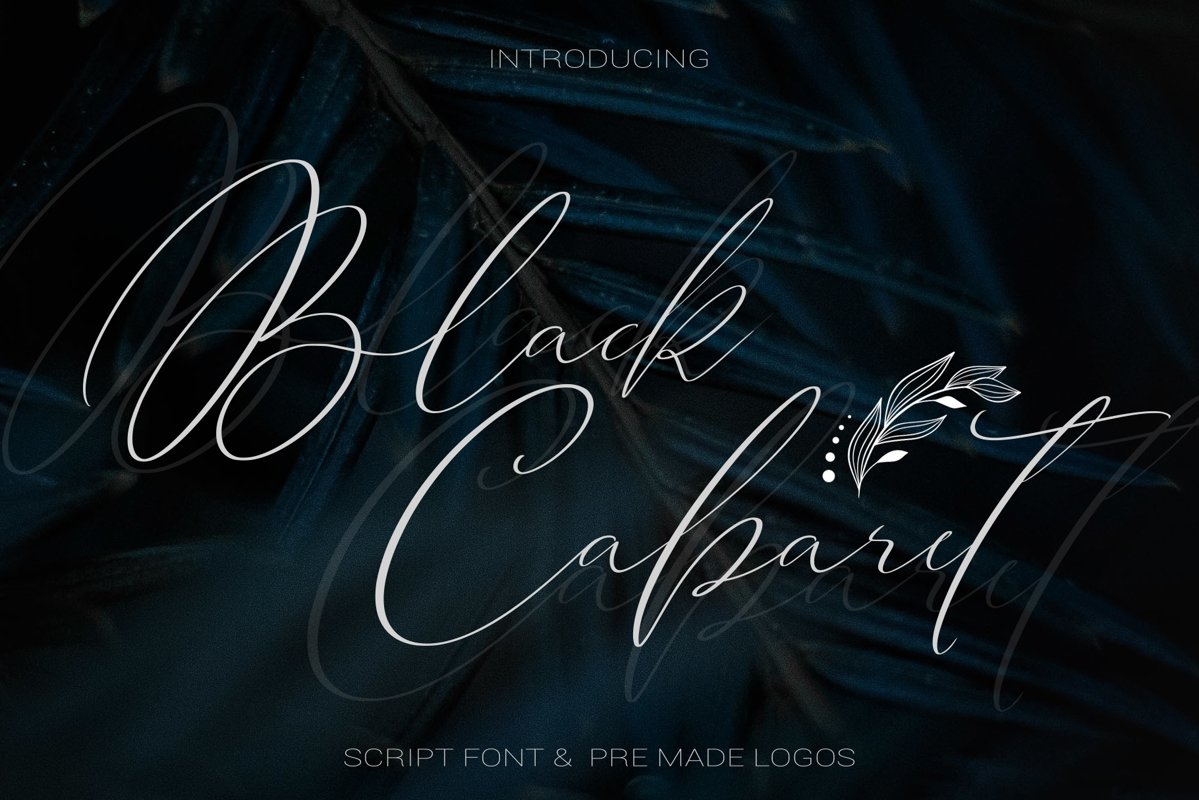
Black Cabaret Script Font & Logos
BlackCabaret
Black Cabaret Script Font & Logos - elegant modern calligraphy script font with alternates and logo elements